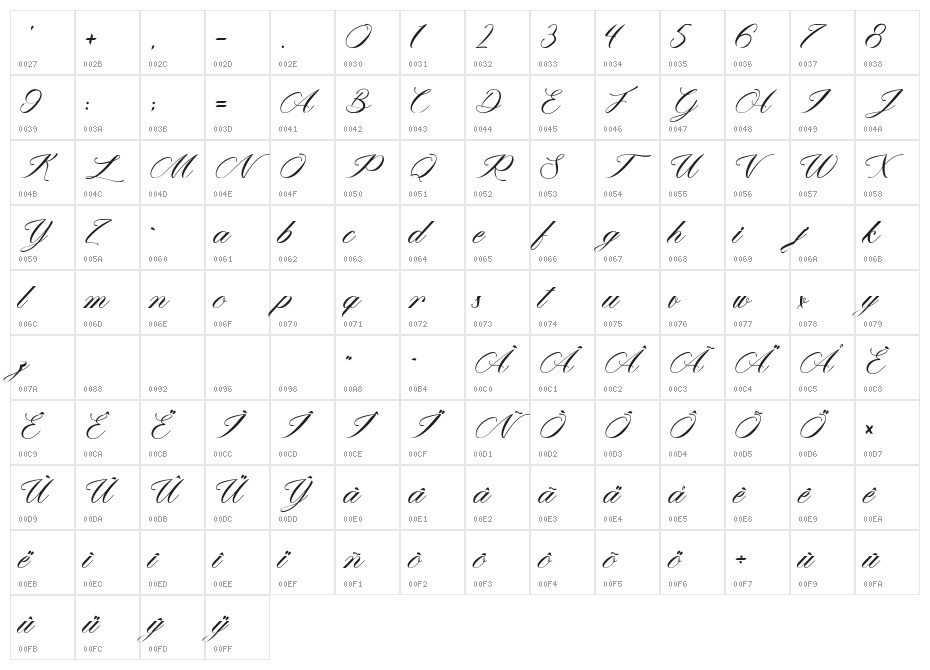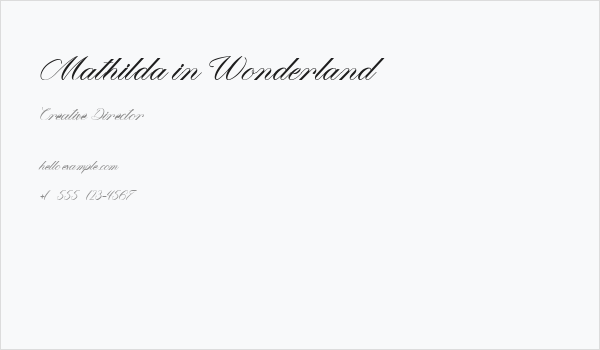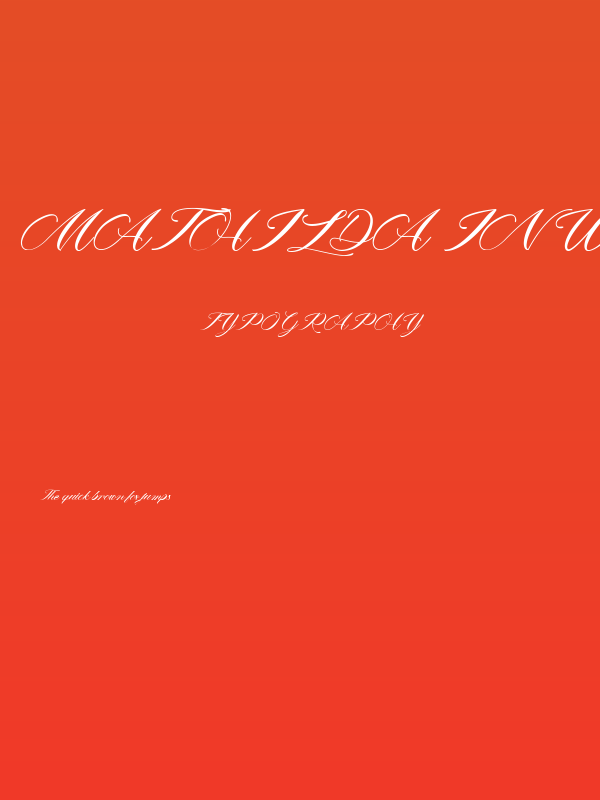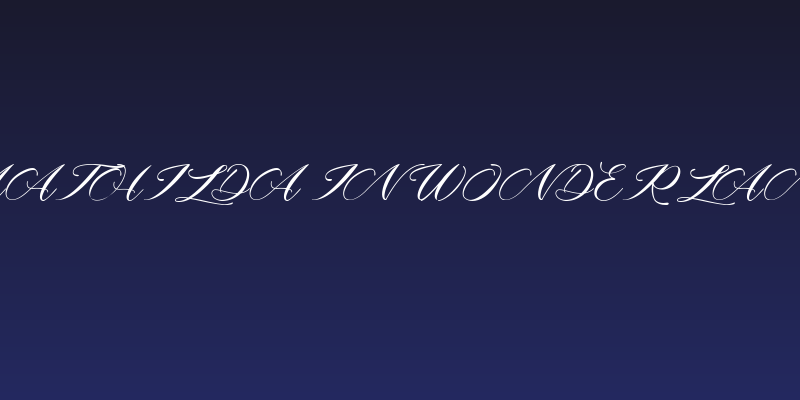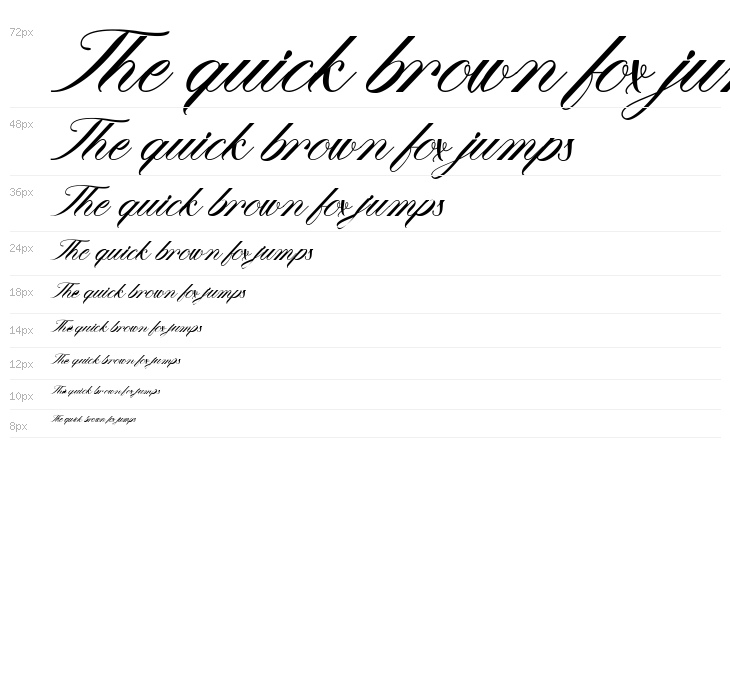
Mathilda in Wonderland Font
Mathilda in Wonderland Description
This elegant script font features flowing, interconnected letters that exude a sense of sophistication and grace. The uppercase letters are ornate, with sweeping curves and flourishes that add a touch of drama. The lowercase letters maintain a consistent flow, making it ideal for creating a seamless, handwritten appearance. The numerals are stylish and match the overall aesthetic, while the special characters are thoughtfully designed to complement the script. This font is perfect for projects that require a personal, elegant touch, such as invitations, greeting cards, and branding materials.
| Overall Style | Elegant, Sophisticated |
| Use Case | Logos, Invitations, Personal stationery |
| Proposed Projects | Ideal for wedding invitations, elegant branding, greeting cards, and personal stationery. |